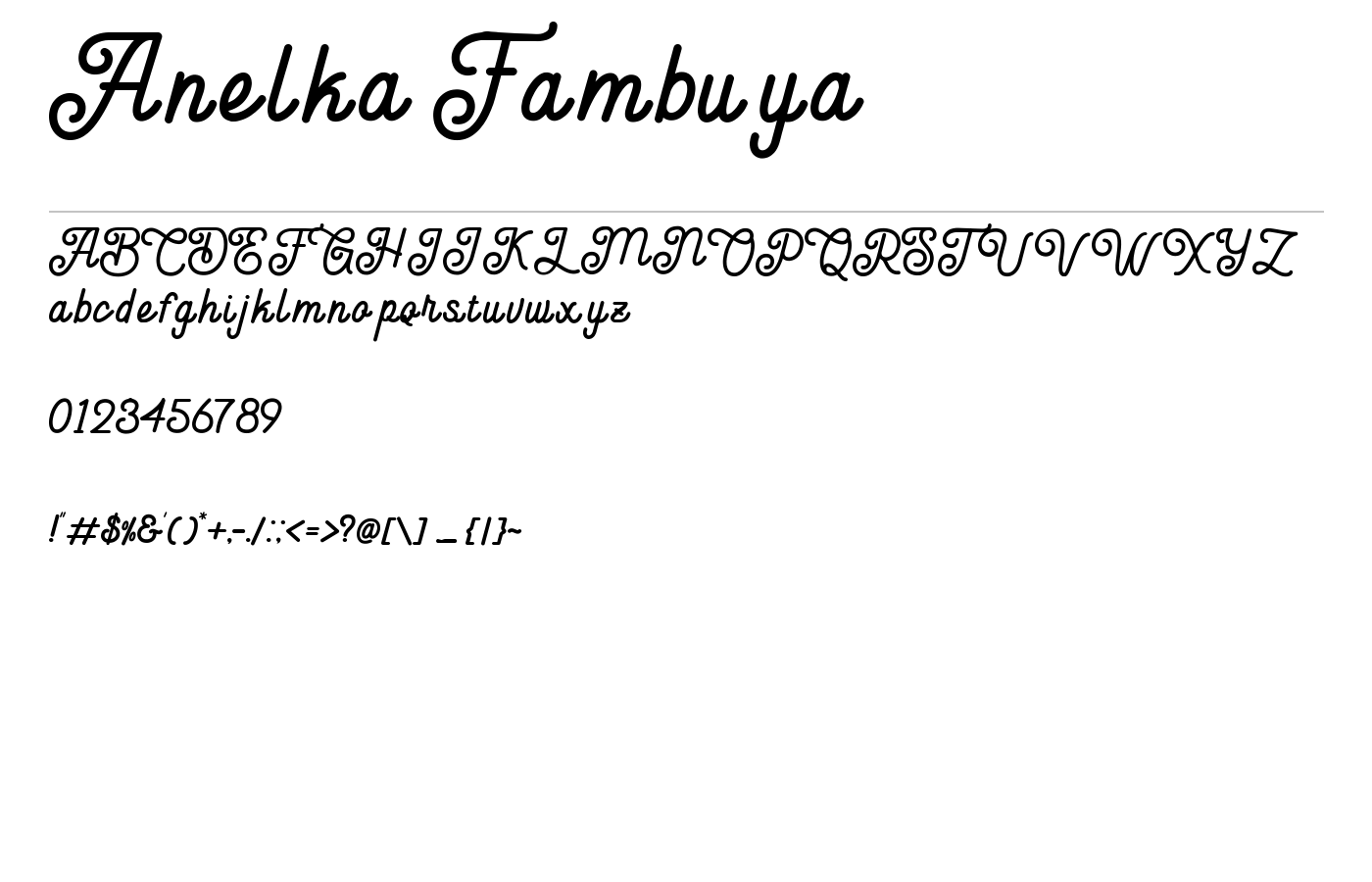
Anelka Fambuya is a graceful script font with a light weight and a smooth, flowing stroke that evokes a handwritten charm. Its elegant, slightly bold curves and consistent contrast create a refined yet approachable feel, making it perfect for invitations, logos, and branding that seek a stylish, personal touch. This font shines in designs where warmth and class are key, especially in fashion, beauty, and luxury contexts.
Anelka Fambuya Font
About Anelka Fambuya Font